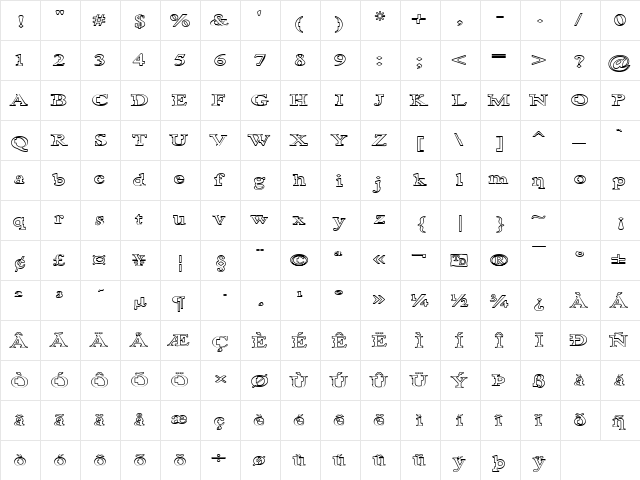
GoombahOutline Regular Font Preview
GoombahOutline Regular
Design Context for GoombahOutline Typeface
GoombahOutline brings ornamental detail and strong personality to headlines and identities, where visual impact matters more than quiet functionality.
Font Pairing: Pair with a clean neutral sans-serif for body copy to let GoombahOutline's character lead without overwhelming the composition.
Pro Tip: Treat GoombahOutline as the centrepiece of your typographic hierarchy. One strong heading set in a decorative face can carry an entire layout.